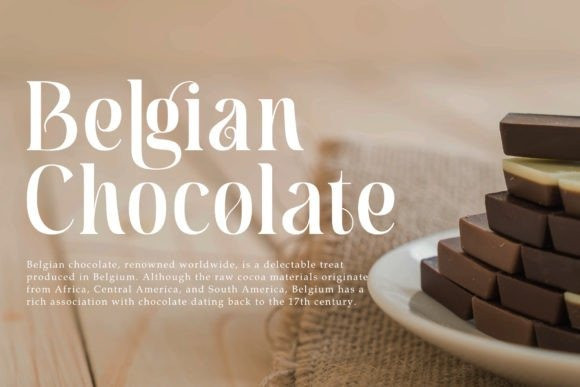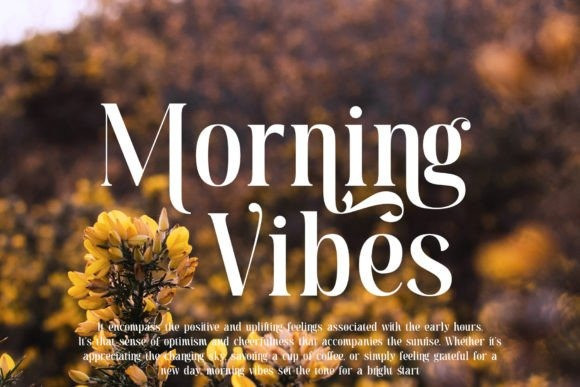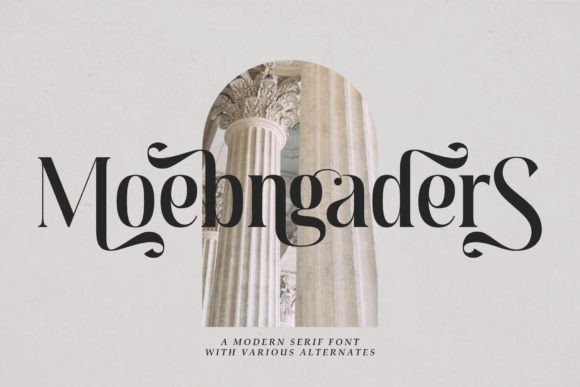
Moebngaders Font
Moebngaders Font is a modern serif font that seamlessly blends elegance with strength. Whether you’re crafting a brand identity, designing a logotype, or embarking on various creative endeavors, Moebngaders is your trusty companion.
Moebngaders refuses to be ordinary. It offers a rich palette of alternates and ligatures, allowing designers to weave their own narrative. Whether you need a subtle variation or a bold twist, Moebngaders delivers, adapting seamlessly to your creative vision.
In summary, Moebngaders isn’t just a font; it’s a design symphony. Choose it to elevate your projects, where elegance meets unwavering strength. Let your brand or logotype resonate with the harmonious notes of Moebngaders—a serif font that leaves an indelible mark on the canvas of creativity.